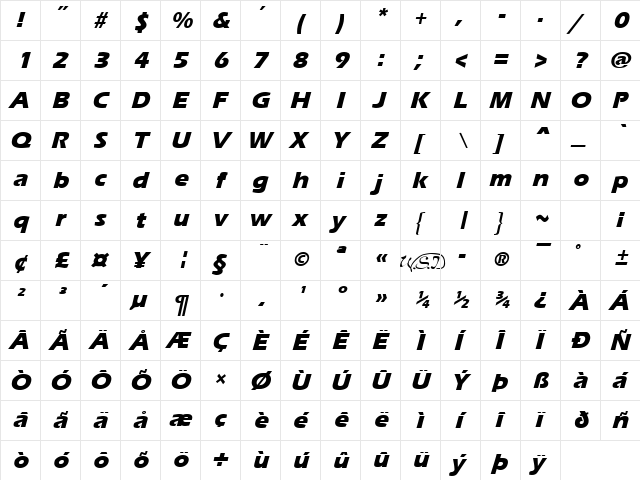
Ergoe-Mild Extrabold Italic Font Preview
Design Context for Ergoe-Mild Extrabold Typeface
Ergoe-Mild Extrabold takes a measured approach to typography — its balanced proportions and neutral character make it a reliable workhorse for both digital and print work. Its italic angle brings a sense of urgency and motion to the letterforms. Its bold stroke weight gives it real presence on the page.
Pro Tip: Try Ergoe-Mild Extrabold for annotation and caption copy alongside an upright companion — the contrast in angle creates a dynamic but ordered typographic system.